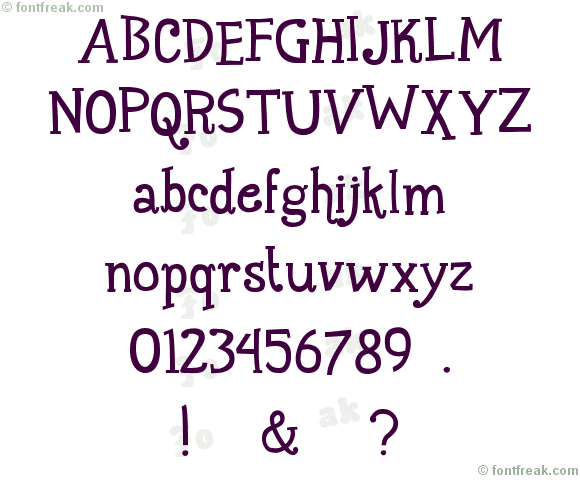
Maharani
About Maharani
Maharani is a captivating display font designed by Adien Gunarta, showcasing an enchanting blend of artistic flair and legibility. As a decorative typeface, it features bold, expressive letterforms that draw attention while maintaining a refined elegance. The stroke weight varies, offering a dynamic contrast that enhances its visual appeal, making it perfect for designs that require a touch of grandeur. The spacing is thoughtfully balanced, allowing the letters to breathe, which contributes to its overall readability.
This font shines in various creative applications. It is particularly well-suited for wedding invitations, where its ornate style can evoke a sense of romance and celebration. Maharani also excels in designing movie posters, adding a dramatic flair that captures the essence of cinematic storytelling. Restaurant menus benefit from its unique character, enticing patrons with a sense of sophistication. Additionally, it can be used effectively in branding for boutique shops, where the font's charm can help establish a distinctive identity.
What truly sets the Maharani font apart is its ability to meld creativity with functionality. The stylish, ornate design does not compromise on clarity, making it an excellent choice for both print and digital media. Whether you are crafting a special occasion invitation or a striking visual campaign, the Maharani font free download offers an opportunity to infuse your work with personality and elegance, making it a standout choice for any creative endeavor.